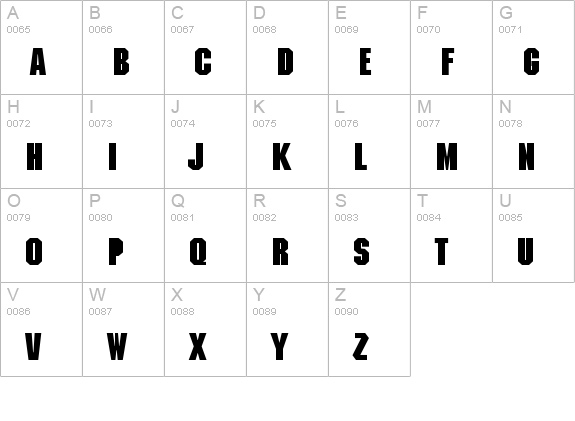
MachineEF-Bold is a strong, high-contrast variant in the MachineEF typeface family \xE2\x80\x94 well suited to headlines, attention-grabbing titles, and strong calls-to-action.
MachineEF-Bold is a bold and powerful font that commands attention with its strong and assertive presence. Designed with precision and clarity in mind, this font is perfect for creating impactful headlines, logos, and designs that demand to be noticed. With its bold and confident strokes, MachineEF-Bold is sure to make a lasting impression. What sets MachineEF-Bold apart is not just its striking appearance, but also its accessibility. This font is available for free download at FontsMarket.com, making it easily accessible to designers, creatives, and anyone looking to add a touch of boldness to their projects. With no cost involved, MachineEF-Bold allows you to experiment and explore its capabilities without any limitations. The versatility of MachineEF-Bold is another aspect that makes it a standout choice. Whether you are working on a professional presentation, a cutting-edge website, or a captivating poster, this font adapts effortlessly to any project. Its clean lines and bold characters lend a modern and contemporary feel, while still maintaining a timeless appeal. MachineEF-Bold is not just a font, but a tool that empowers you to express your creativity freely. Its wide range of characters and symbols ensures that you have the flexibility to bring your vision to life, no matter the project's requirements. From bold headlines to eye-catching graphics, MachineEF-Bold is your go-to font for making a statement. Download MachineEF-Bold for free at FontsMarket.com and experience the power and versatility that this font has to offer. With its bold and captivating design, this font is sure to become an essential part of your design toolkit. Don't miss out on the opportunity to enhance your projects with the boldness and impact that MachineEF-Bold brings.